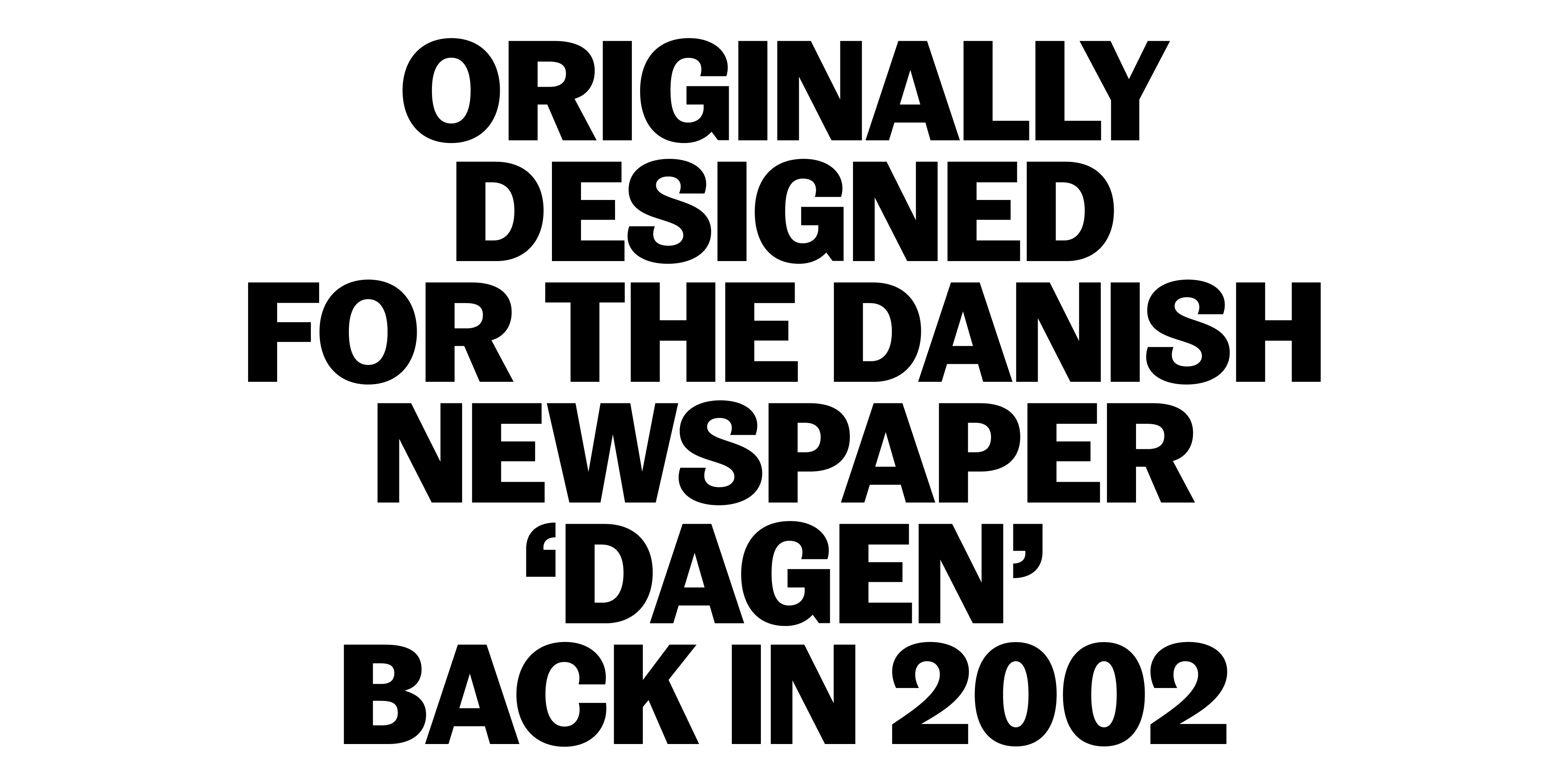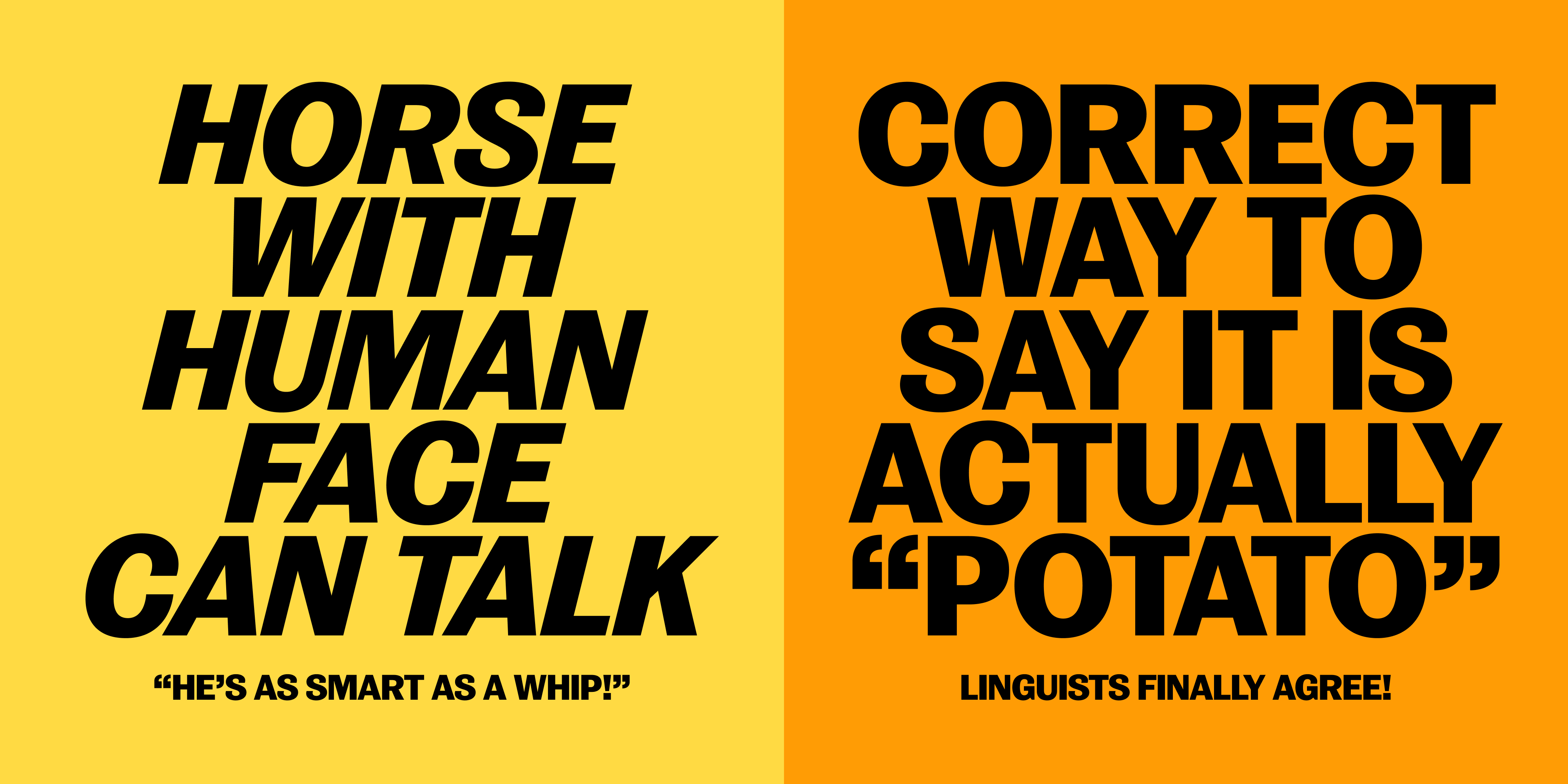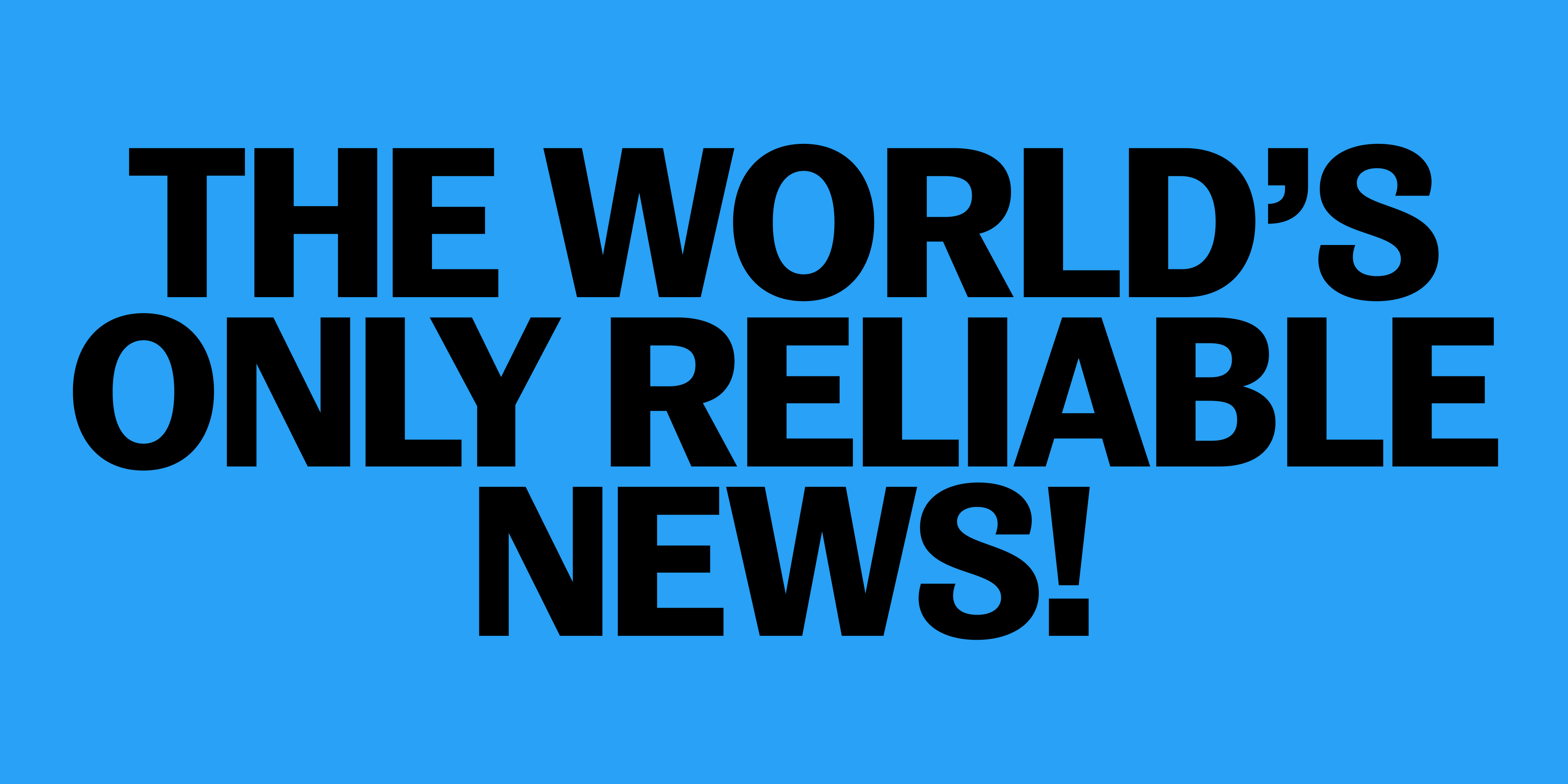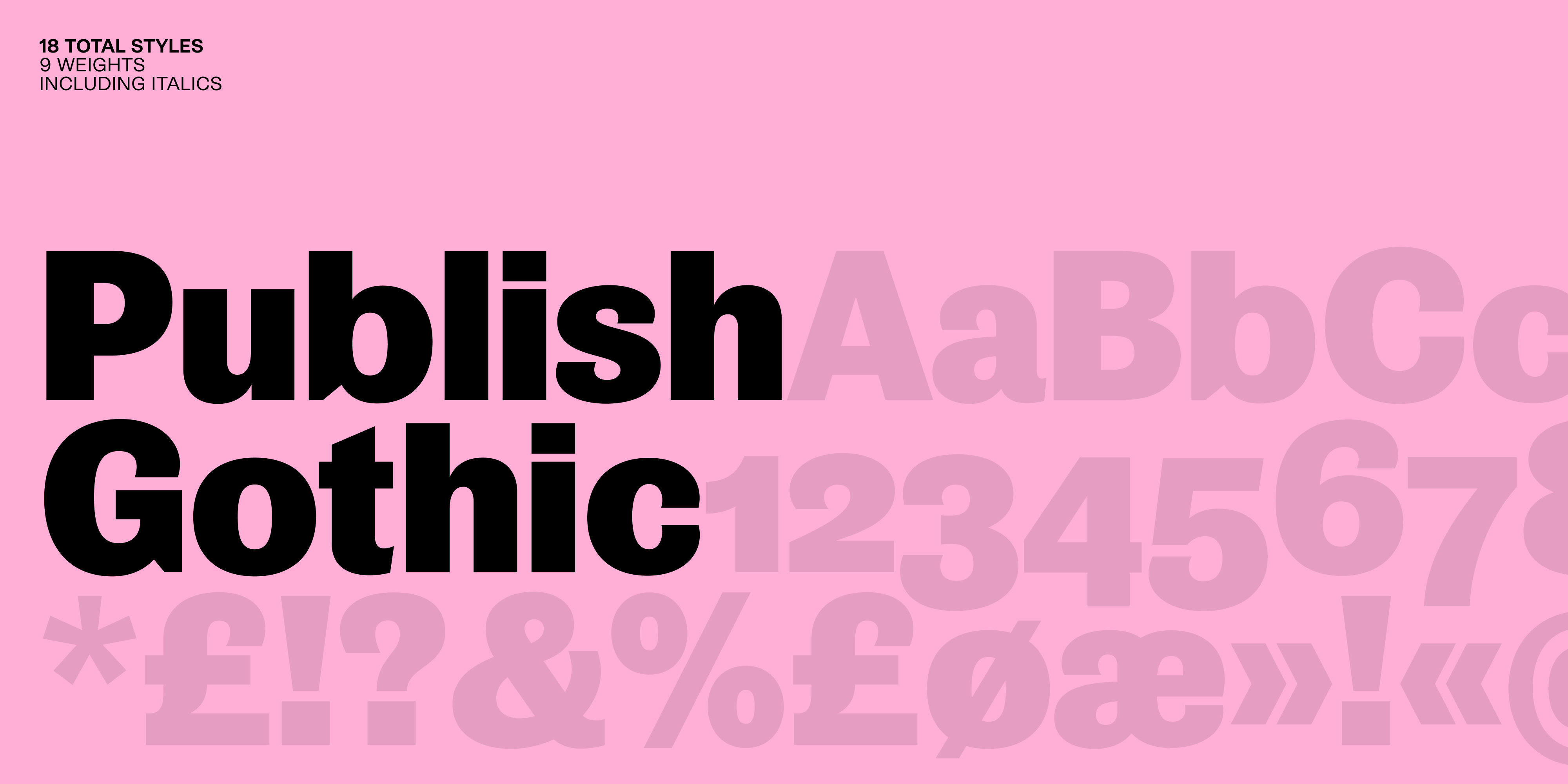
Publish Gothic is a lively contemporary typeface packed with personality and up to date usability. Utilising the quirks and charm found in the emerging sans serif typefaces of the 19th century. The typeface family includes a total of 54 individual styles, divided into three different widths; condensed, normal and expanded, accompanied with italics. This makes it a highly multifaceted and functional typeface system. Publish Gothic includes all the open type features expected of contemporary typefaces. A range of stylistic sets let the user explore and tune the overall look and feeling of Publish Gothic, which ultimately adds to its wide range of use.